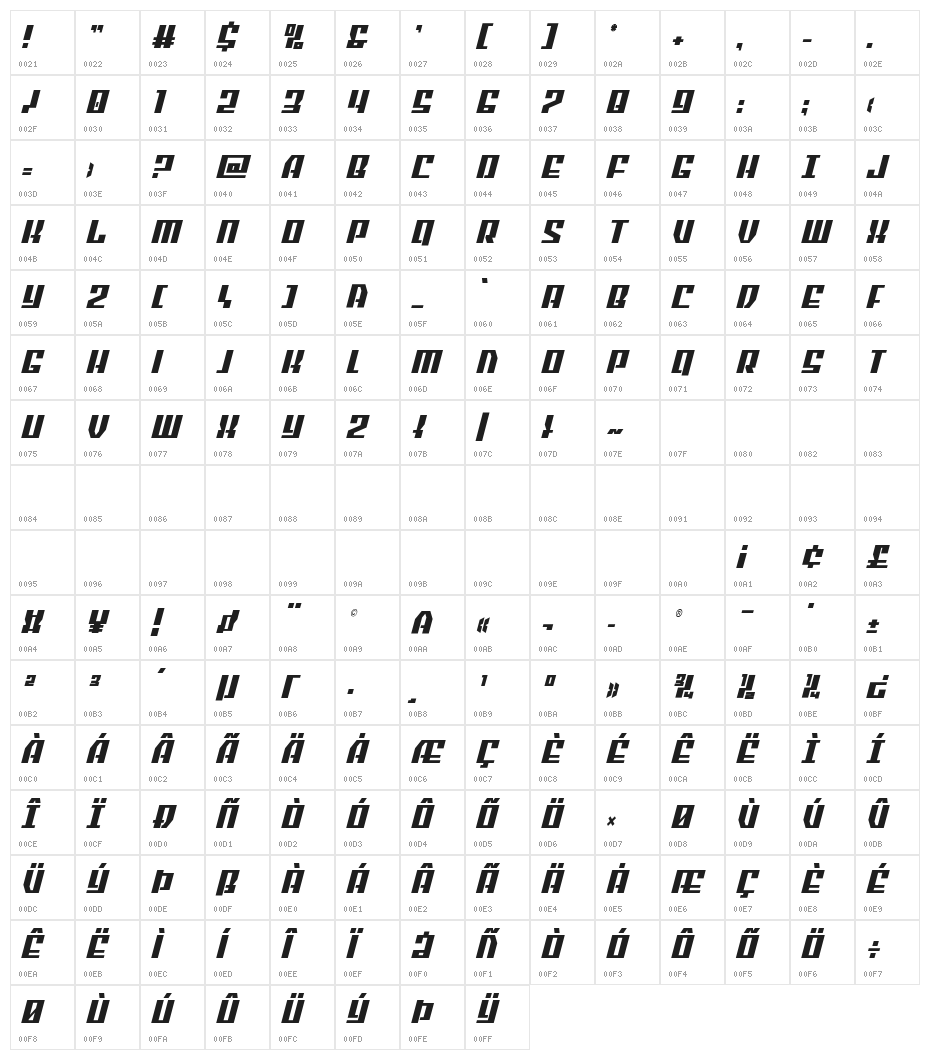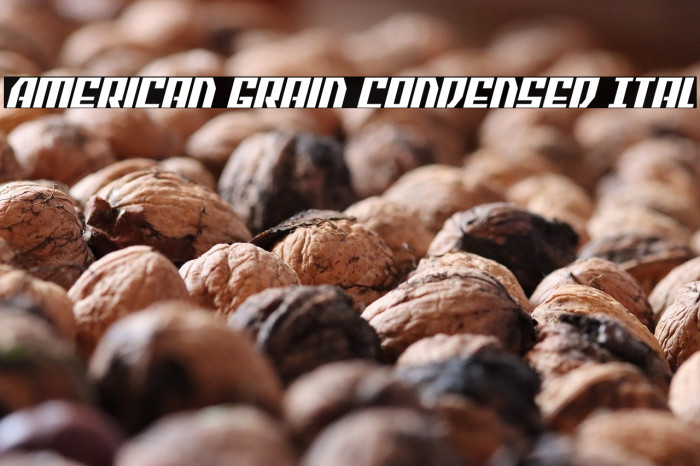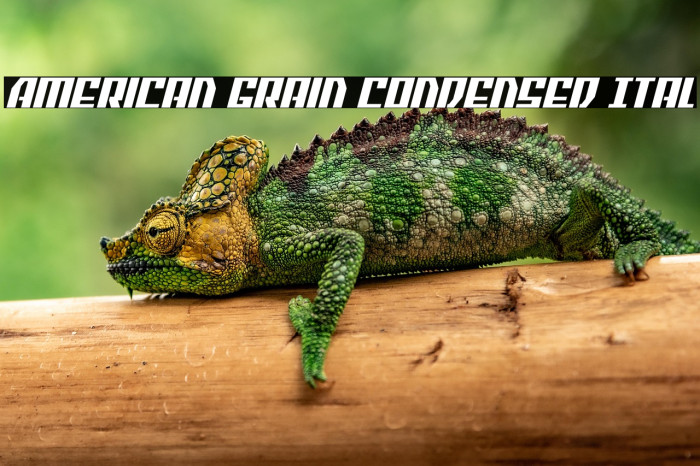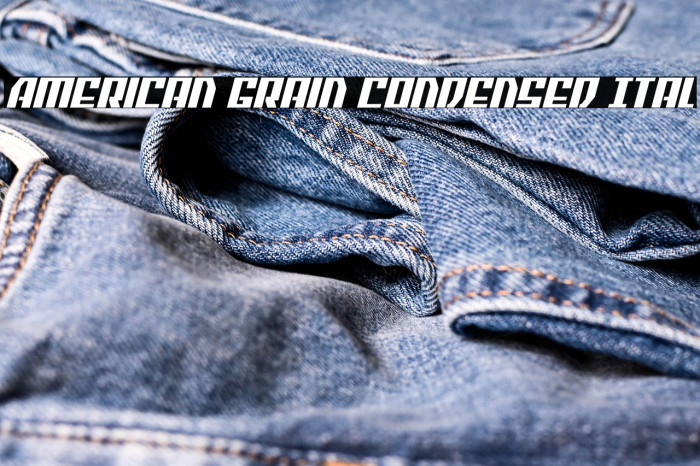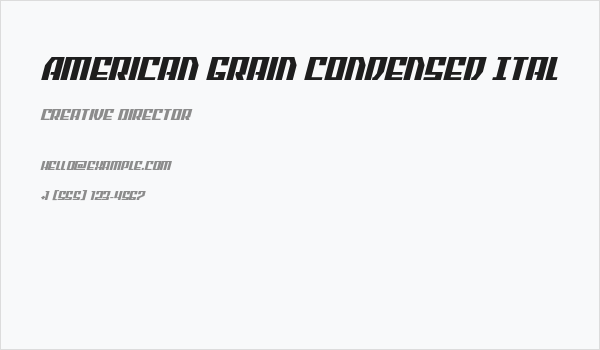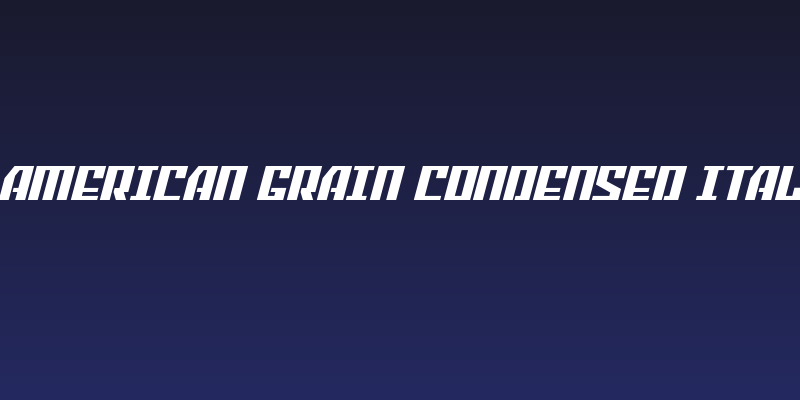
American Grain Condensed Ital Font
American Grain Condensed Ital Description
This font features a bold, condensed style with a distinct italic slant, giving it a dynamic and energetic appearance. The characters are sharply angular, with a geometric influence that adds a modern edge. The uppercase and lowercase letters maintain a consistent height, enhancing the uniformity and compactness of the design. The numerals and special characters follow the same stylistic cues, ensuring a cohesive look across all glyphs. The font's strong presence makes it suitable for impactful headlines and attention-grabbing designs.
| Proposed Projects | Ideal for sports branding, dynamic posters, and modern advertising campaigns. |